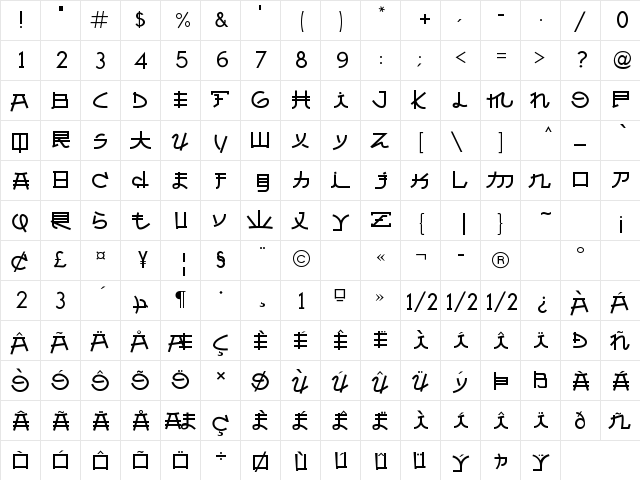
Almost Japanese Regular Font Preview
Almost Japanese Regular
Almost Japanese Regular Font Details
Design Context for Almost Japanese Typeface
Almost Japanese is a composed and adaptable typeface that performs quietly and consistently across a wide range of design contexts.